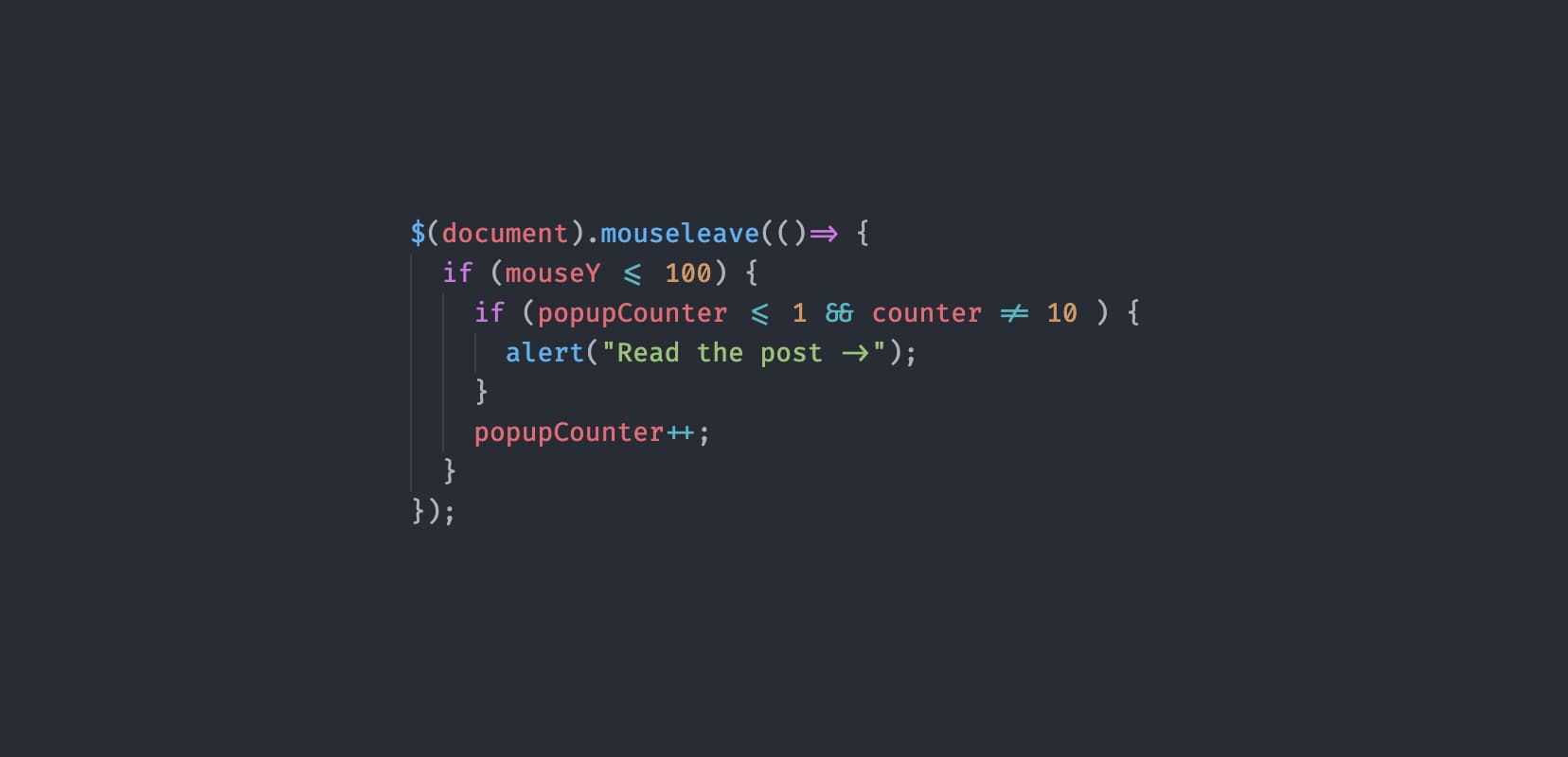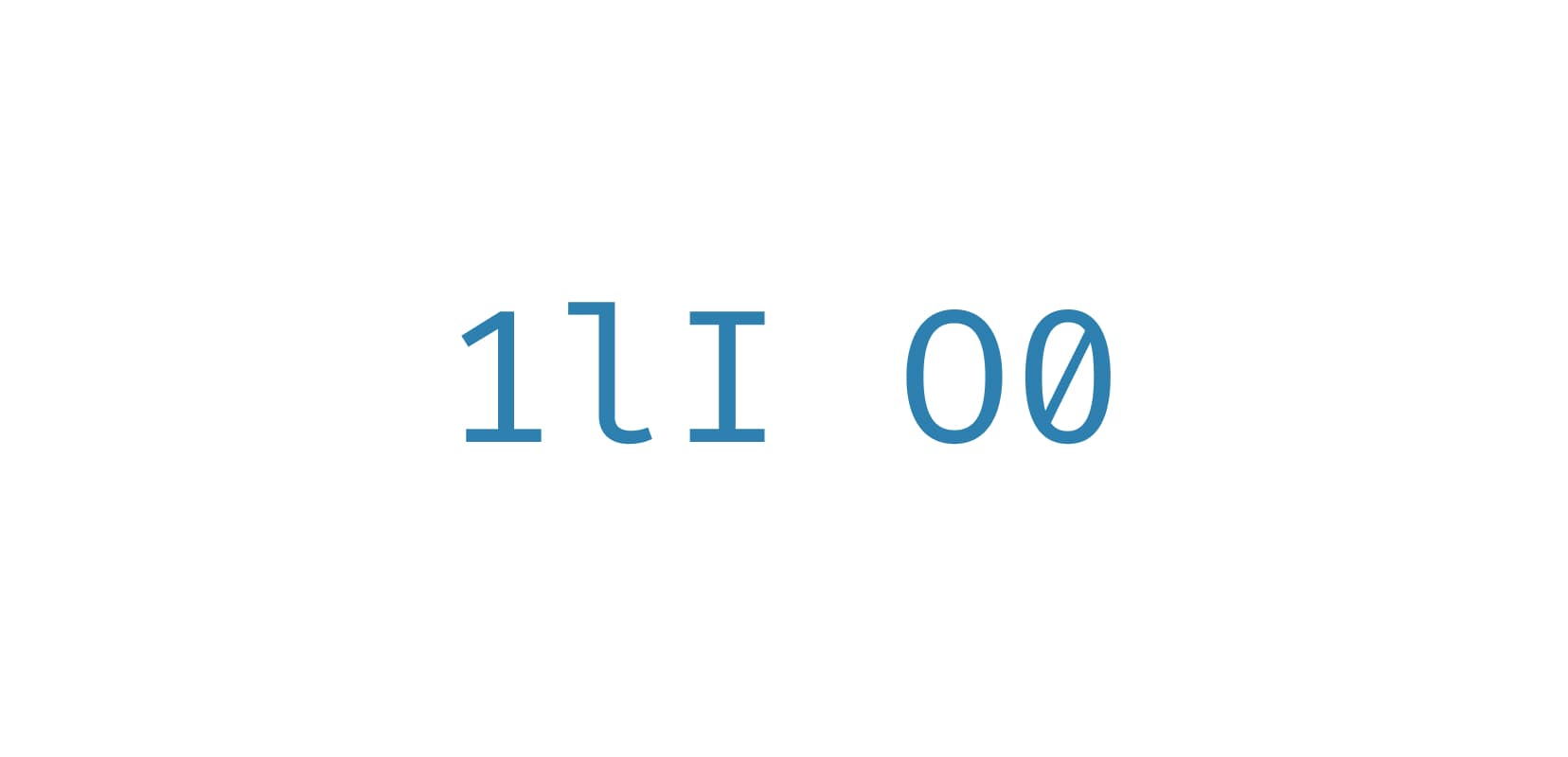
I’d always used the Monaco font and Sublime Text for coding but I recently decided to switch to VS Code. That change also led me to explore monospaced fonts suitable for coding as I worked on customising my VS Code theme.
At some point, I found Fira Code and loved the fact that it had coding ligatures, so I made the switch. That wasn’t long ago, but I recently did even more research into monospaced fonts and found my new favourite, you can see it at the bottom of this article. Here are the five fonts I considered the best, all of them are free to download and use.
Fira Code
This is a really cool monospaced font based on Fira Mono from Mozilla. I wanted to have it first on the list as I used it for quite a while and I want to compare all others to it. It also seems that it’s become quite popular since its release so a lot of you may be using it. Perfect reason for using it as a baseline.
This is what Fira Code looks like in action.
Ligatures
It seems that from all five fonts in this article Fira Code has the most ligatures. If not the most, definitely the widest range of all the different ligatures supported. For example, it even has a www ligature, as well as ones for all markdown heading levels and even traditional ligatures like “fi”, “fl”, “Fl” and similar.
Fira Code has a lot of coding ligatures and they look really good.
X-height
Fira Code’s x-height is what I would call “regular”. Not small, not large, somewhere in between. This is another property that makes it a good baseline to compare other fonts to.
Fira Code’s x-height is quite standard, perfect for comparing with other fonts.
Legibility
When it comes to legibility, Fira Code does a really good job. The “1”, “l” and “I” characters, for example, are clearly distinguishable. This is an extremely important thing when it comes to coding where a single misspelt character can break the code. The “O” and “0” characters are also different enough to tell them apart immediately. They’re differently shaped and the zero character comes with either a slashed or a dotted design.
Fira Code scores well on legibility.
Other cool things about Fira Code
Lots of OpenType features supported and a Retina weight that looks really good on Retina screens.
Iosevka
Iosevka is described as a “slender monospaced sans-serif and slab-serif typeface designed to be the ideal font for programming.”
This is what Iosevka looks like in action.
Ligatures
There’s a ton of ligatures in Iosevka but I must say, some of them don’t look as good as in other fonts from this article. The angles used in arrows and some of the sizes used look a bit strange. For a coding font, I really like it to be explicit and the code set in it readable. Iosenka could improve its ligatures design a bit.
Iosenka supports a good range of ligatures but they could look better.
X-height
Let’s compare Iosenka to Fira Code. We can see straight away that their x-height is similar so I’ll conclude that Iosenka’s x-height is regular too. Now that we’re having a closer look, I noticed that Iosenka seems to be somewhat condensed.
Iosenka’s x-height is very similar to Fira Code’s.
Legibility
I decided to score Iosevka’s legibility as “not that good”, partly because of this somewhat condensed style, but also because of particular characters designs. If we check the “1lI” and “O0” characters which often suffer the most from poor legibility, we can see that they’re very similar. They’re not that easy to tell apart, especially at smaller sizes. And coding fonts usually are used at smaller sizes.
Iosenka’s legibility of the most problematic letters could be improved. Fira Code for comparison above.
Other cool things about Iosevka
So not good scores on the ligatures and legibility of Iosenka, but we do have to give credit to the authors for producing 9 weights and they all come with their italic and oblique counterparts.
Monoid
Monoid is the monospaced font that stands out the most from the ones I write about in this post. Its authors describe it as “Semi-condensed and distinguishable glyphs with short ascenders and descenders, big apertures and supersized operators and punctuation.” Sounds interesting, let’s take a closer look!
This is what Monoid looks like in action.
Ligatures
Monoid has the most basic ligatures for coding which should cover 80% of what a programmer needs. It’s not a big range of ligatures but it’s ok to work with. The smaller range of ligatures isn’t Monoid’s primary problem though, it’s the fact that they don’t work on some popular code editors. That includes Visual Studio, Sublime Text and Notepad++.